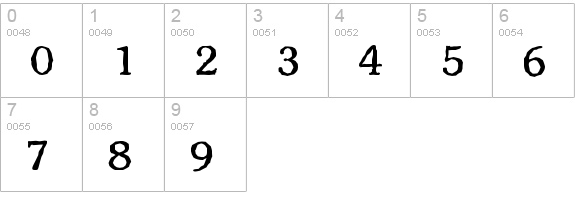
SunsetAntique-Regular Font Details
SunsetAntique-Regular is the standard, neutral variant in the SunsetAntique typeface family \xE2\x80\x94 well suited to general body text, paragraphs, and standard typographic work.
SunsetAntique-Regular is a charming and elegant serif font that exudes a timeless and vintage aesthetic. With its delicate curves and classic letterforms, this font is perfect for adding a touch of sophistication to your designs. Whether you're working on invitations, branding, or editorial projects, SunsetAntique-Regular will elevate your work with its unique character. Best of all, SunsetAntique-Regular is available for free download at FontsMarket.com. This means you can easily access this beautiful font and incorporate it into your projects without any cost. Don't miss out on the opportunity to enhance your designs with the beauty of SunsetAntique-Regular. Download it today and add a touch of vintage flair to your creations.